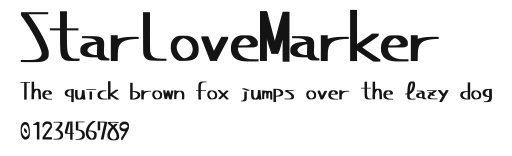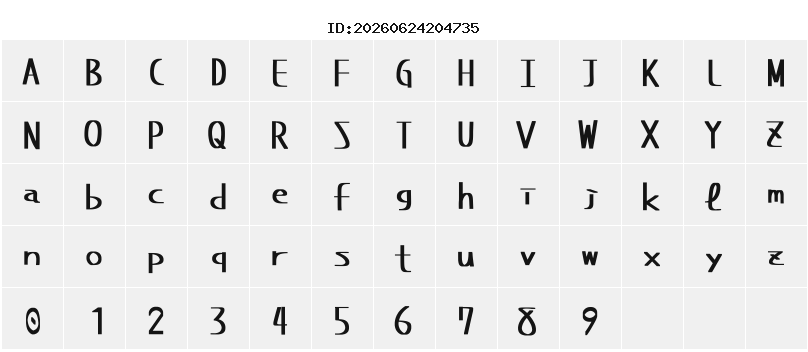
StarLoveMarker Preview
• Font Name: StarLoveMarker
• Full Font Name: StarLoveMarker
• PostScript Name: StarLoveMarker
About StarLoveMarker.ttf
StarLoveMarker.ttf is a modern, elegant sans-serif font designed for ultimate readability and visual harmony. Perfect for branding, headlines, web design, and print materials.